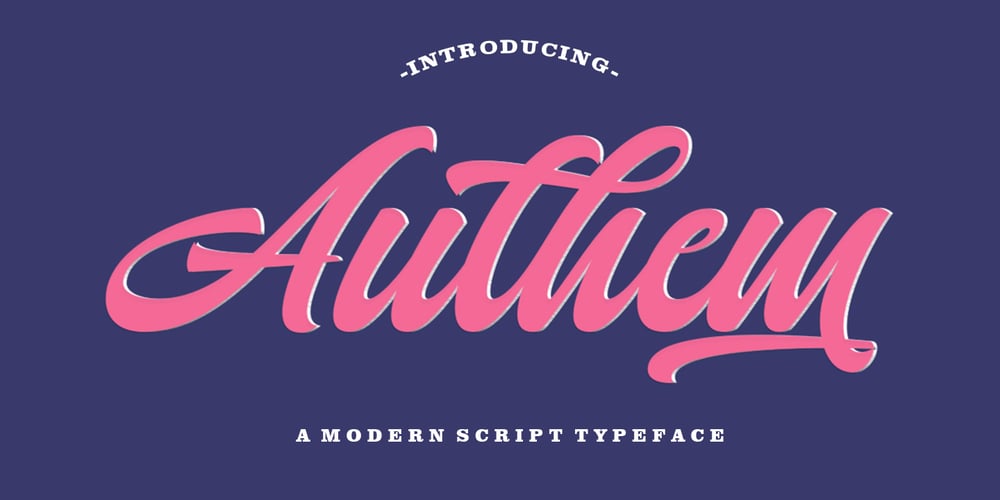
Authem Font Family was designed by Rizki Andika and published by Letterfreshstudio. Authem contains 1 styles and family package options. Authem is a modern script typeface. It contains a complete set of lowercase, uppercase, alternative, ligature, punctuation, numbers, and multilingual support. You are welcome to use it for various purposes: logos, wedding invitations, titles, signatures, t-shirts, letterheads, signboards, labels, posters, and more. How to access all alternative characters, using Windows Character Map with Photoshop: https://www.youtube.com/watch?v=Go9vacoYmBw How to access all alternative characters using Adobe Illustrator: https://www.youtube.com/watch?v=XzwjMkbB-wQ Thank you